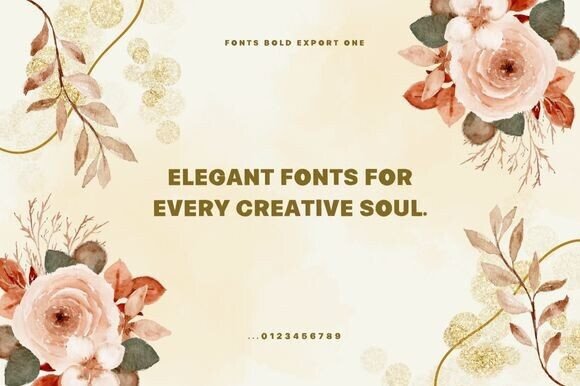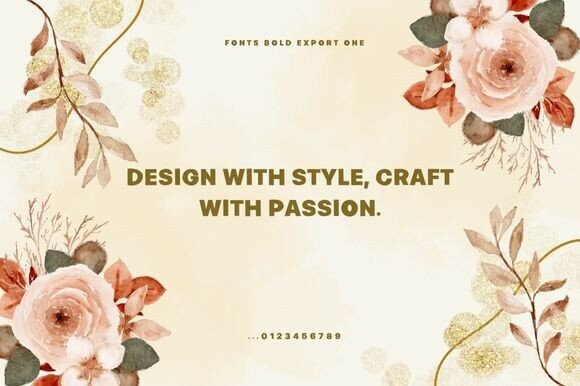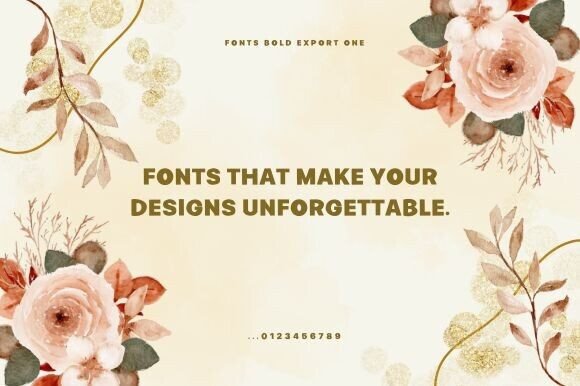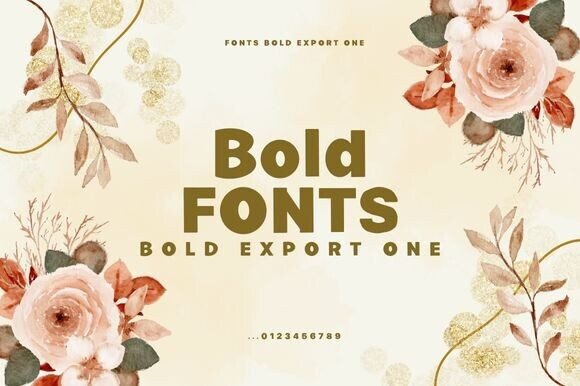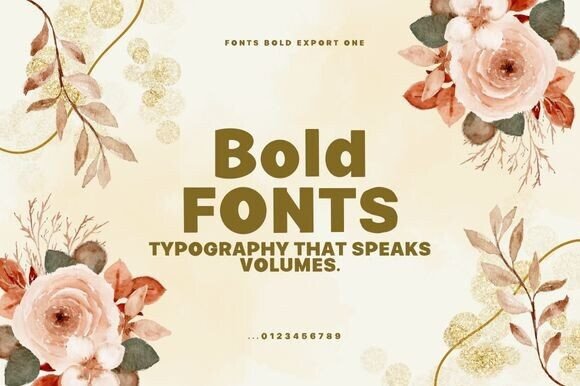
Introducing Bold Export One: The Ultimate Font for Impactful Designs
Are you tired of using fonts that fail to make a statement? Look no further than Bold Export One, a powerful and high-impact font designed to help creators make their mark. With its strong weight, clean edges, and modern industrial vibe, this font is perfect for bold headlines, packaging, branding, posters, logos, and any design that demands attention.
A Font Designed for Versatility
Bold Export One is crafted with versatility in mind, making it an excellent choice for a wide range of design applications. Whether you’re working on a print project, such as a brochure or business card, or a digital design, like a website or social media graphic, this font works seamlessly across both mediums. Its confident structure makes it ideal for labels, signage, merchandise, and editorial designs where clarity and presence matter most.
Key Features of Bold Export One
• Strong Weight and Clean Edges: The font’s robust design ensures that your message stands out, while its clean edges provide a crisp and modern look.
• Modern Industrial Vibe: Bold Export One’s industrial aesthetic gives it a unique edge, perfect for designs that require a bold and edgy feel.
• Uppercase Letters, Numbers, Punctuation, and Basic Multilingual Support: This font includes a comprehensive character set, making it ready for global use.
• Seamless Print and Digital Compatibility: Bold Export One works flawlessly across both print and digital media, ensuring your design looks great no matter where it’s displayed.
Bold Export One is an excellent choice for designers and crafters who want to create something unforgettable. Whether you’re designing a logo, poster, or packaging, this font delivers the punch your project needs. Its confident and modern look makes it perfect for:
• Bold Headlines: Make a statement with bold and eye-catching headlines that grab attention.
• Packaging and Branding: Create a lasting impression with packaging and branding that stands out from the crowd.
• Posters and Logos: Design striking posters and logos that make a lasting impact.
• Editorial Designs: Add a touch of confidence and modernity to your editorial designs, such as magazines, newspapers, and blogs.
Why Choose Bold Export One?
With so many fonts available, why choose Bold Export One? Here are just a few reasons:
• Unique and Memorable: Bold Export One’s modern industrial vibe and strong weight make it a unique and memorable font that’s sure to leave a lasting impression.
• Versatile: This font is designed to work seamlessly across a wide range of design applications, making it an excellent addition to any designer’s toolkit.
• Global Compatibility: With basic multilingual support, Bold Export One is ready for global use, making it perfect for designers who work with international clients.
In conclusion, Bold Export One is a powerful and high-impact font that’s perfect for designers and crafters who want to make a statement. With its strong weight, clean edges, and modern industrial vibe, this font is ideal for bold headlines, packaging, branding, posters, logos, and any design that demands attention. Its versatility, global compatibility, and comprehensive character set make it an excellent choice for a wide range of design applications. So why settle for a font that fails to impress? Choose Bold Export One and make your mark with confidence.